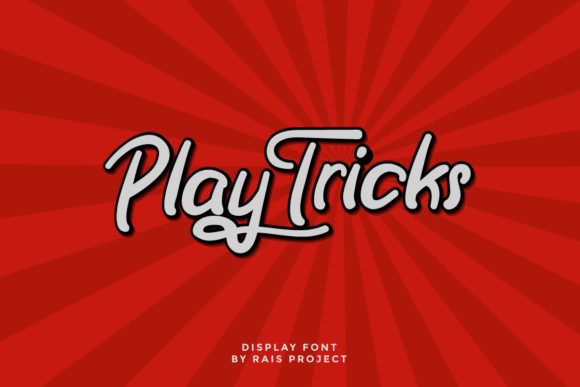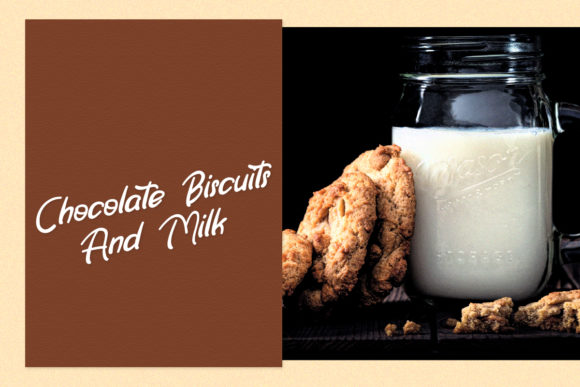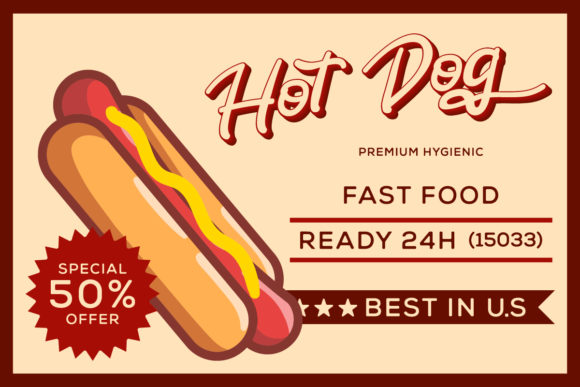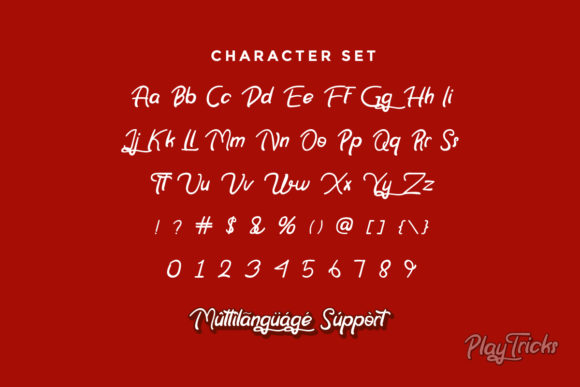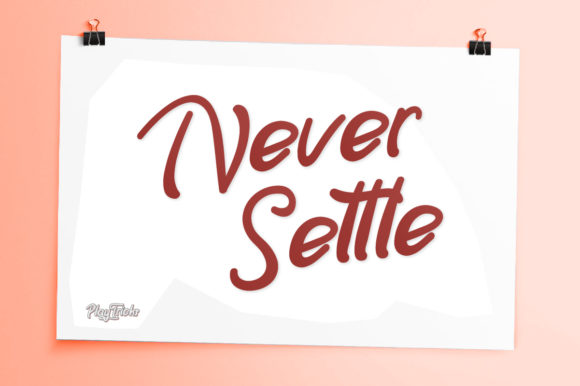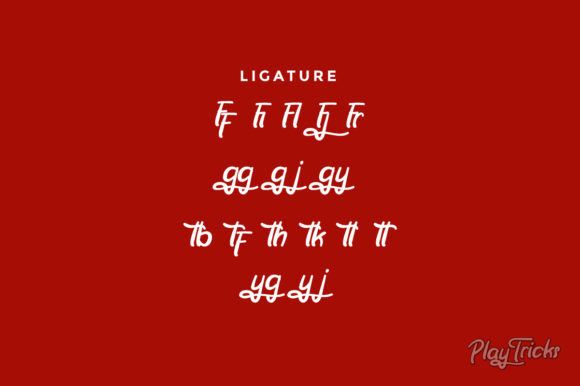
Play Tricks Font
About Play Tricks Font
Play Tricks is a neat and friendly handwritten font. Simple and easy to use, this font will be very beautiful if you mix it with your various craft designs.